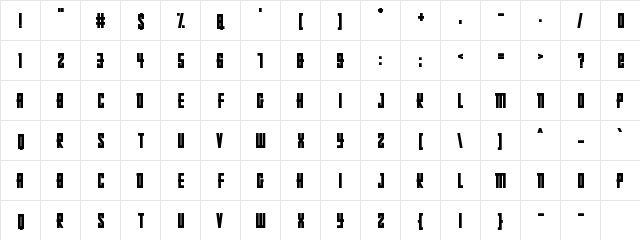
Russian Dollmaker Regular
Design Context for Russian Dollmaker Typeface
Russian Dollmaker is a composed and adaptable typeface that performs quietly and consistently across a wide range of design contexts.